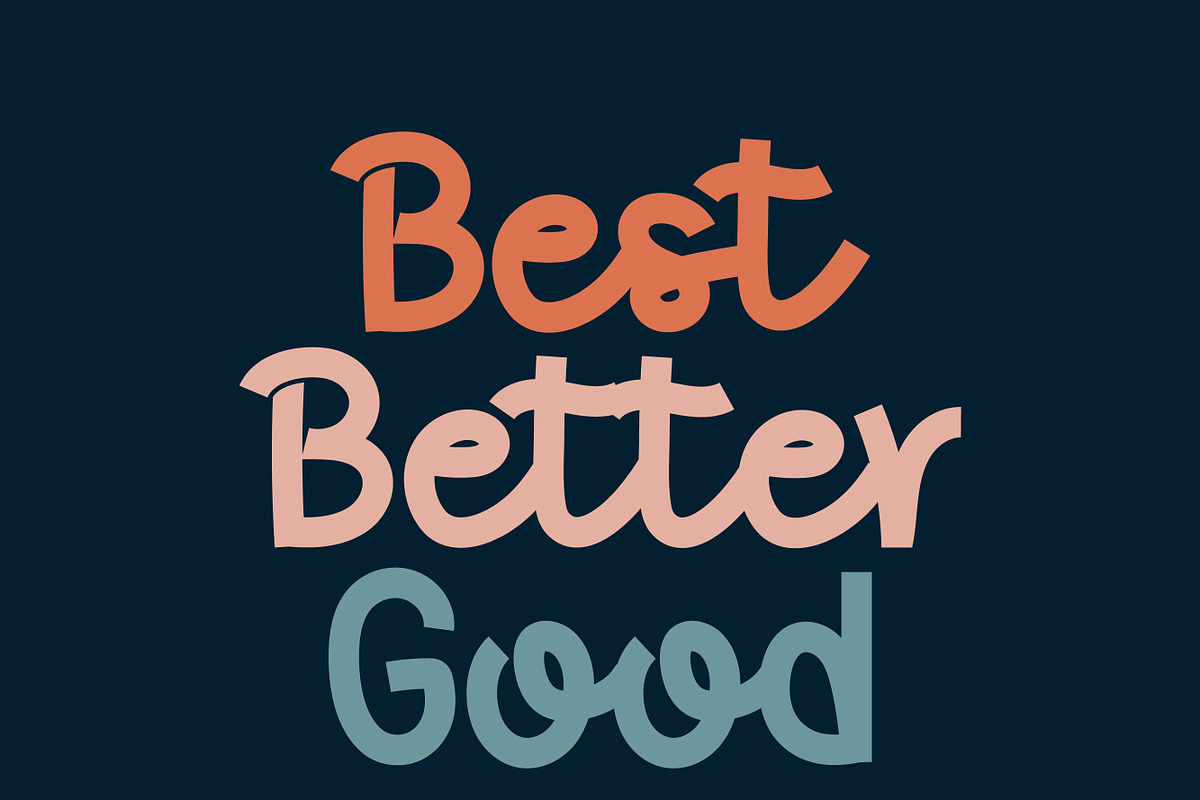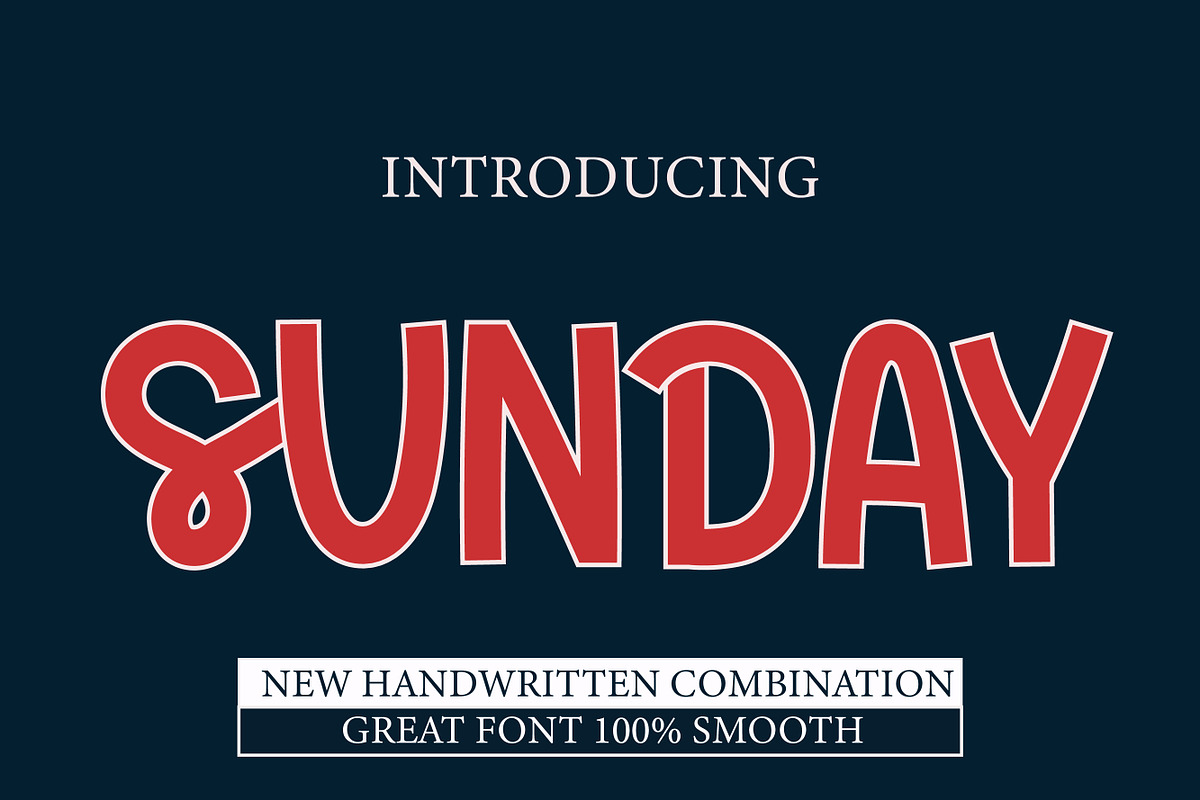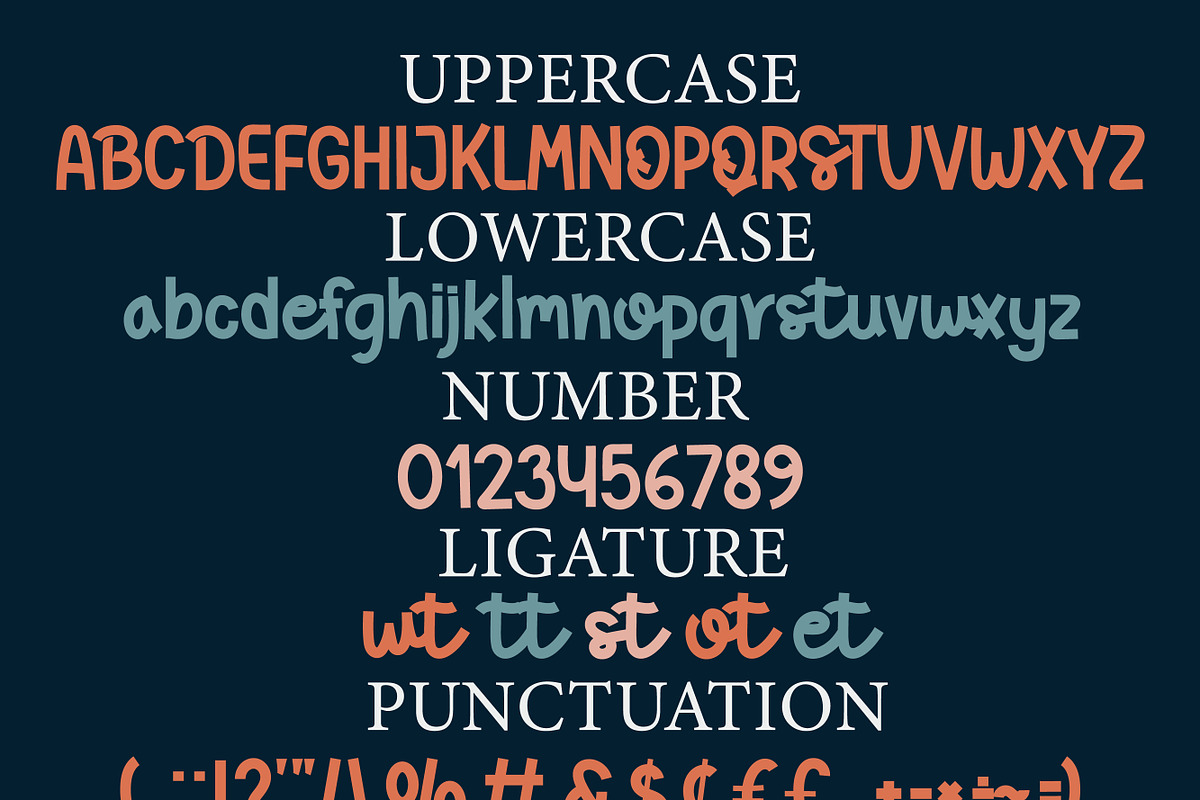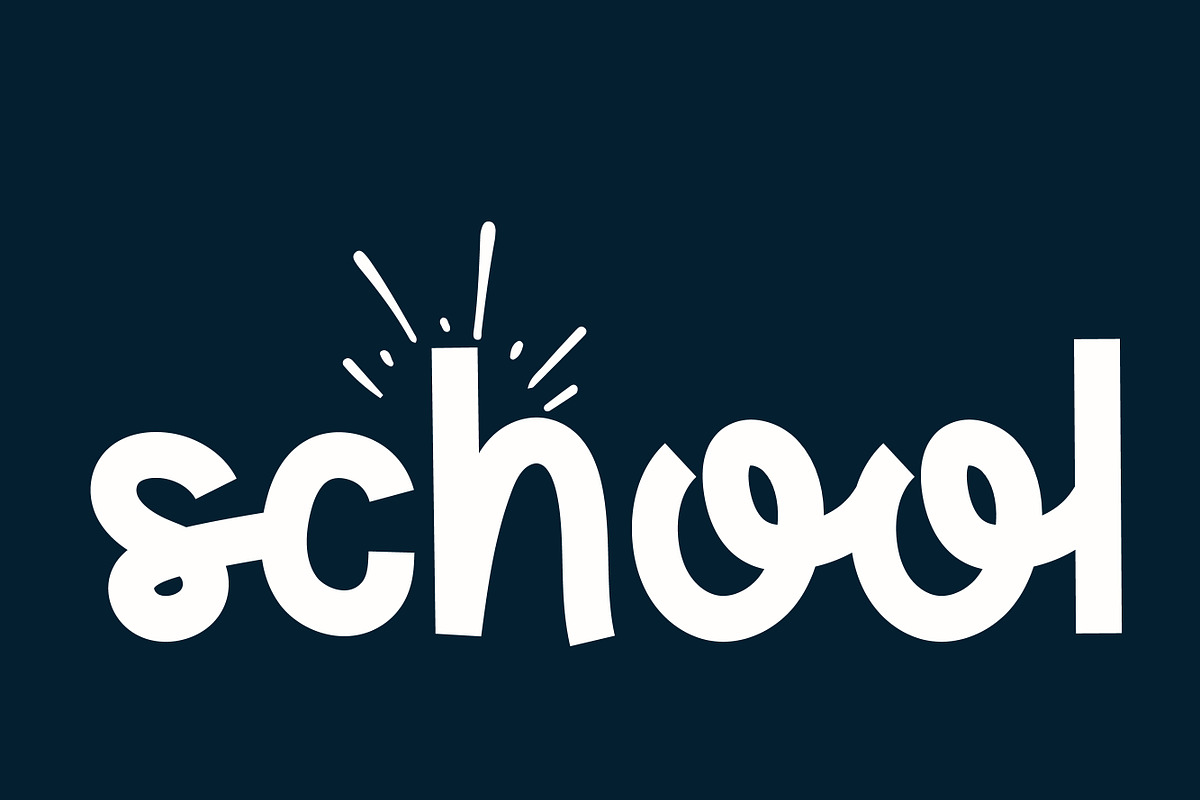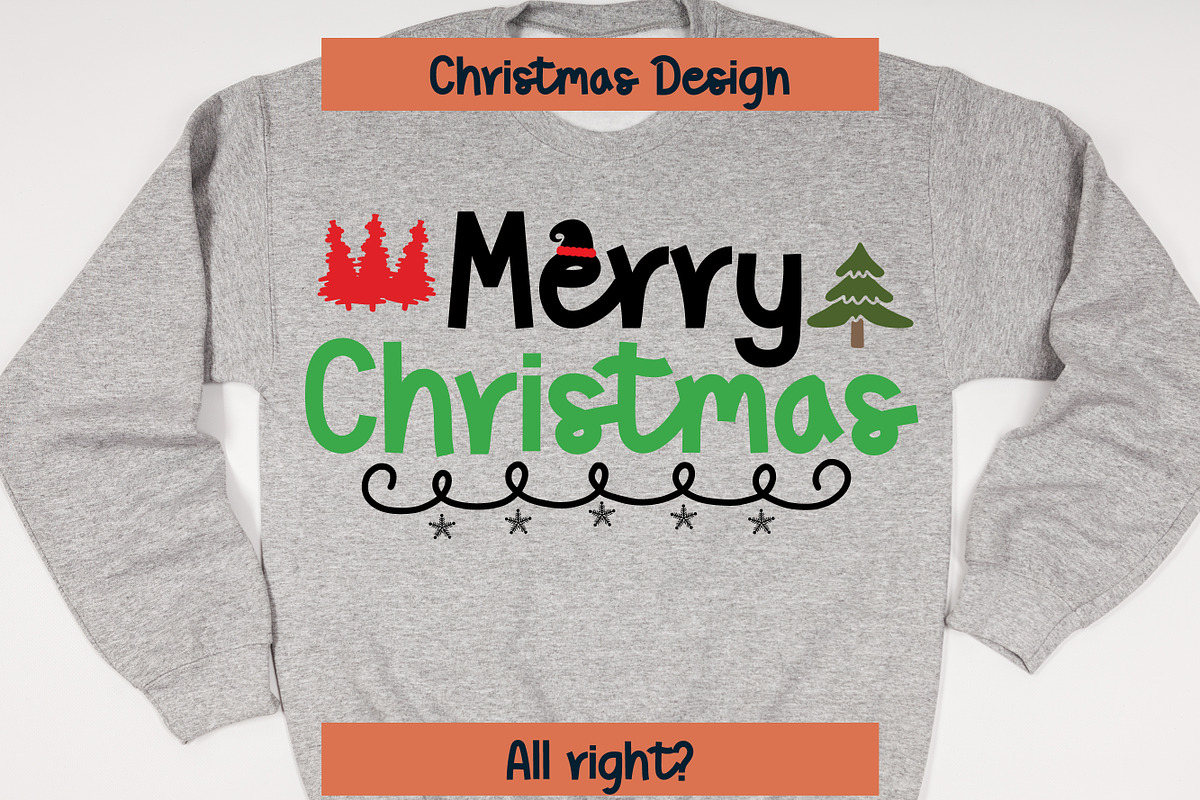
Sunday Script Handwritten
Sunday is a script and friendly handwritten font with a contemporary atmosphere and impeccable form, inspired by timeless classic calligraphy. It gives personalized to your beautiful craft. It will add elegance and class to any of your design projects.